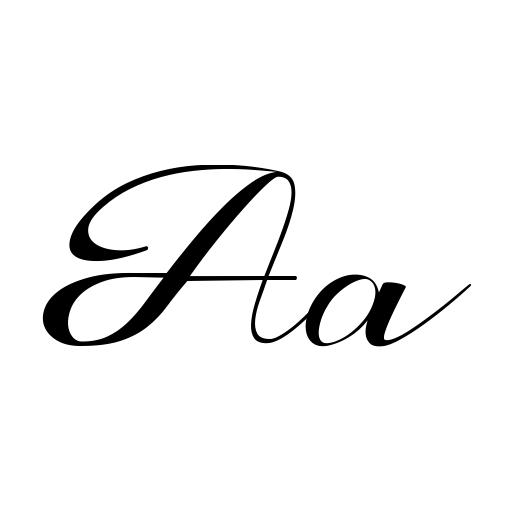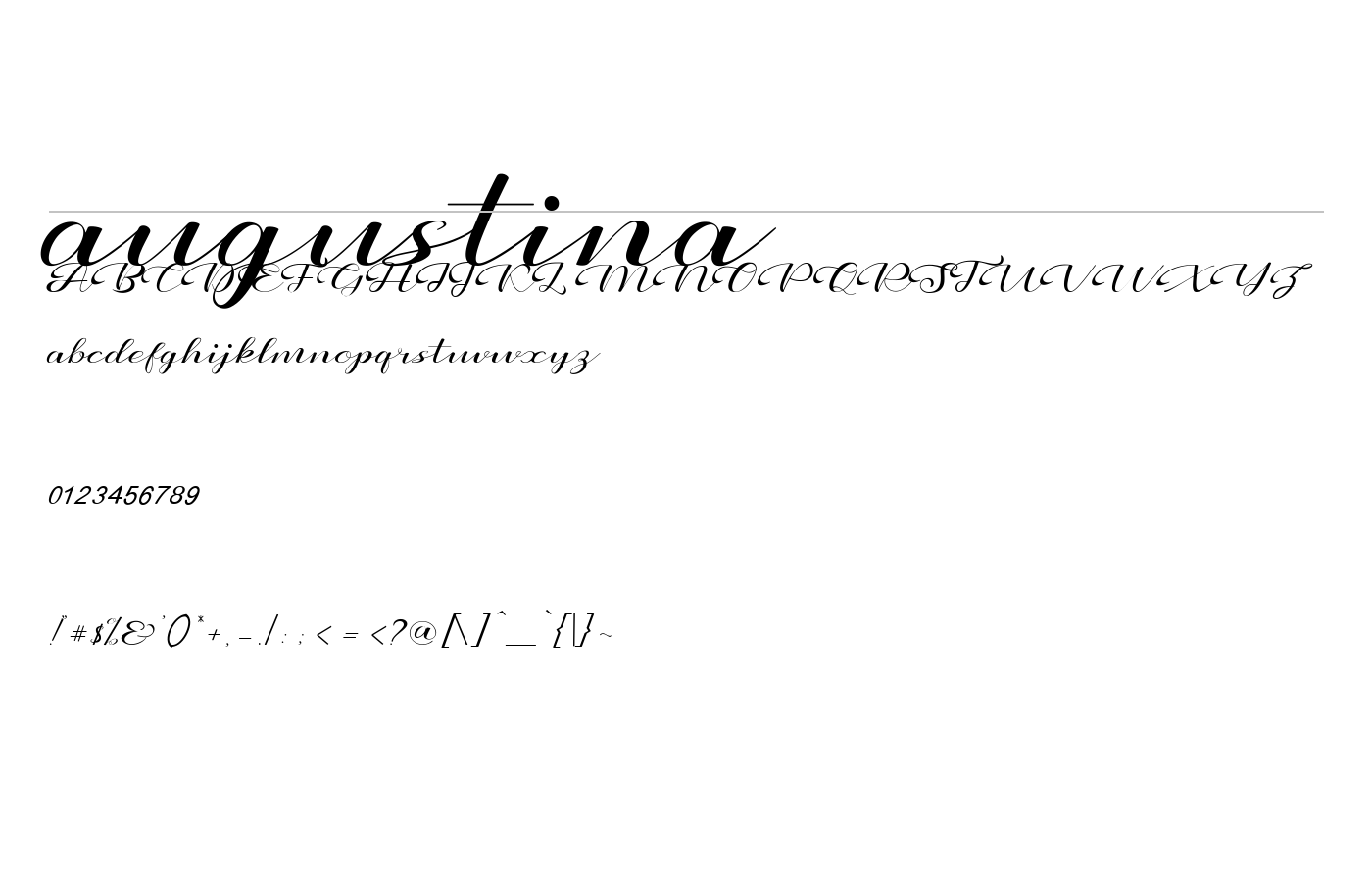
Augustina is a graceful and elegant script font featuring delicate, flowing strokes and finely detailed letterforms that evoke a sense of sophistication and classic charm. Its light weight and high contrast make it ideal for upscale branding, wedding invitations, and luxury packaging where a refined, timeless look is desired. This font works beautifully in headlines and decorative text, adding a touch of artistry and class to any design.
augustina Font
About augustina Font
| Font family | augustina Font |
| Designer | smartdesign |